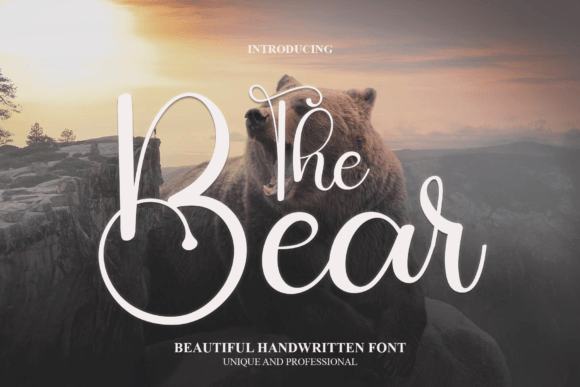
**The Bear Font: A Dance of Words, A Symphony of Style**
In a world clamoring for attention, let your designs speak volumes with The Bear Font, a script typeface that dances across the page with elegance and grace. Inspired by the beauty of handwritten signatures, this font captivates with its sweeping strokes and delicate flourishes.
**Born from the Heart, Designed for Elegance**
Crafted by the skilled hands of PAYJHOshop, The Bear Font is a testament to the power of creativity and passion. Each letter, meticulously drawn, exudes a sense of refined sophistication, making it the perfect choice for those seeking to add a touch of charm and individuality to their projects.
**A Versatile Performer, A Timeless Treasure**
Whether you're designing wedding invitations, crafting social media posts, or creating eye-catching packaging, The Bear Font is your versatile companion, ready to elevate your creations to new heights. Its ability to blend seamlessly with various design aesthetics makes it a timeless choice that will never go out of style.
**Speak with Confidence, Create with Passion**
The Bear Font is more than just a collection of letters; it's a powerful tool that empowers you to express yourself with flair and confidence. Whether you're a seasoned designer or just starting your creative journey, this font will unleash your imagination and help you create designs that leave a lasting impression.